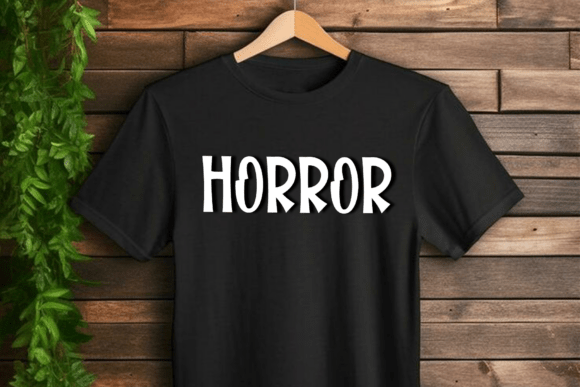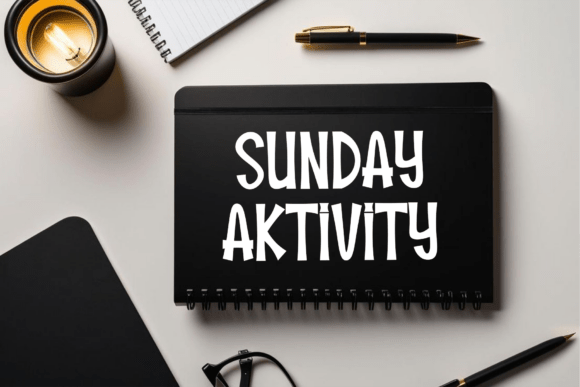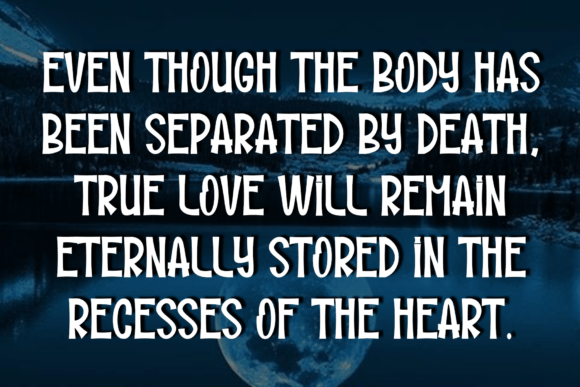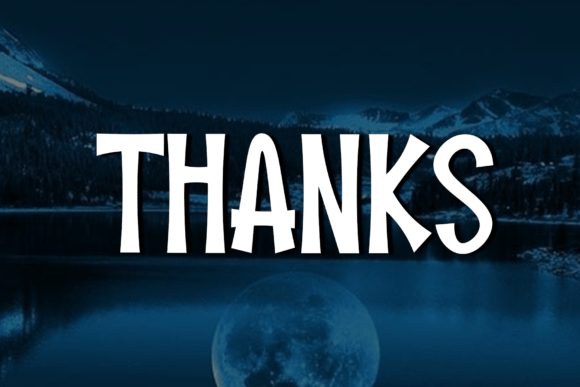
Introducing Happy Midnight Font: Elevate Your Designs with Elegance and Flair
In the world of typography, a good font can make all the difference in elevating your designs from ordinary to extraordinary. For designers and crafters looking for a modern display font that exudes elegance and sophistication, Happy Midnight Font is an excellent choice. This beautiful font combines fluid strokes and gentle curves to create a unique and personal touch that is sure to make your designs stand out.
The Characteristics of Happy Midnight Font
Happy Midnight Font is a modern display font that boasts a range of characteristics that make it perfect for a variety of design projects. Some of its key features include:
- Fluid Strokes: The font’s fluid strokes give it a natural, hand-written feel that is both elegant and approachable.
- Gentle Curves: The gentle curves of Happy Midnight Font add a touch of sophistication and refinement to your designs.
- Modern Aesthetic: The font’s modern aesthetic makes it perfect for designers and crafters looking for a fresh and contemporary look.
- Readability: Despite its elegant and refined appearance, Happy Midnight Font remains highly readable, making it perfect for use in a variety of design projects.
Happy Midnight Font is a versatile font that can be used in a wide range of design projects, including:
- Wedding Invitations: The font’s elegant and refined appearance makes it perfect for wedding invitations, adding a touch of sophistication and romance to your designs.
- Logos: Happy Midnight Font is an excellent choice for logos, providing a unique and memorable brand identity that will help your business stand out.
- Stationery: The font’s modern aesthetic and elegant appearance make it perfect for use in stationery, adding a touch of refinement and sophistication to your designs.
- Instagram Quotes: Happy Midnight Font is also perfect for use in Instagram quotes, providing a beautiful and eye-catching way to share your favorite quotes and sayings.
- Branding Projects: The font’s versatility and elegance make it an excellent choice for branding projects, providing a consistent and cohesive brand identity that will help your business stand out.
Why Choose Happy Midnight Font?
So why choose Happy Midnight Font for your design projects? Here are just a few reasons:
- Elegance and Sophistication: The font’s elegant and refined appearance adds a touch of sophistication and refinement to your designs.
- Versatility: Happy Midnight Font is a versatile font that can be used in a wide range of design projects, from wedding invitations to logos and branding projects.
- Readability: The font’s high readability makes it perfect for use in a variety of design projects, from body text to headings and titles.
- Unique and Personal Touch: The font’s fluid strokes and gentle curves give it a unique and personal touch that is sure to make your designs stand out.
Tips for Using Happy Midnight Font
Here are a few tips for using Happy Midnight Font in your design projects:
- Use it as a Display Font: Happy Midnight Font is perfect for use as a display font, adding a touch of elegance and sophistication to your headings and titles.
- Pair it with a Sans-Serif Font: Pairing Happy Midnight Font with a sans-serif font can create a beautiful and striking contrast that adds visual interest to your designs.
- Experiment with Different Sizes and Colors: Don’t be afraid to experiment with different sizes and colors of Happy Midnight Font to add visual interest and emphasis to your designs.
In conclusion, Happy Midnight Font is a beautiful and versatile font that is perfect for designers and crafters looking for a modern display font that exudes elegance and sophistication. Its fluid strokes and gentle curves give it a unique and personal touch that is sure to make your designs stand out. With its high readability and versatility, Happy Midnight Font is an excellent choice for a wide range of design projects, from wedding invitations to logos and branding projects.